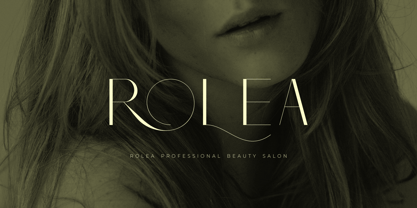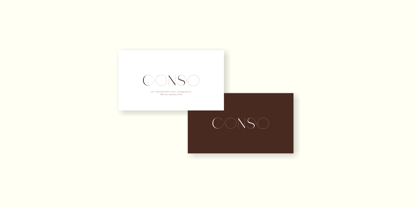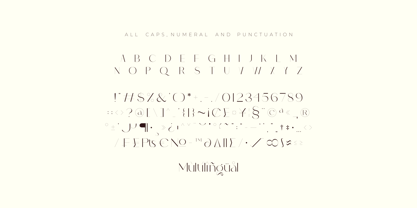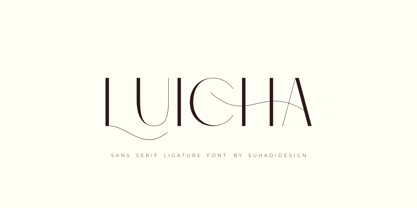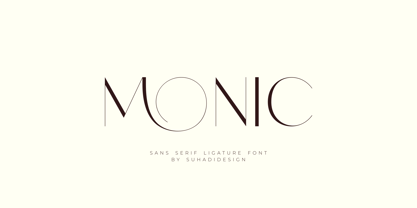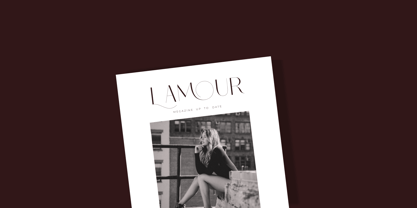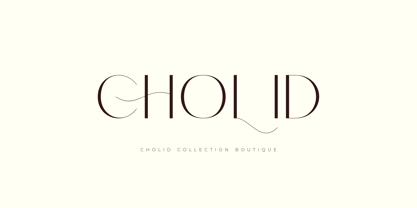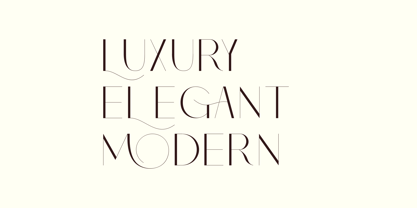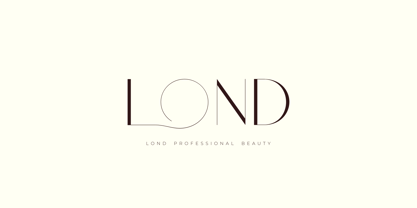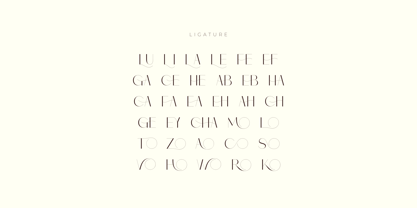
Monic
The Monic Font Family was designed by ahmad suhadi and published by suhadidesign. Monic contains 1 styles. More about this family
Monic - Modern Ligature Font
The latest stylish modern font has arrived, and it's being sought after by many women and men. It's the Monic font. Monic is a modern and stylish sans serif font. With its modern design and ligature features, this font has become a favorite on the market. We've kept this font looking elegant, classy, and stylish. Monic is the perfect choice for cosmetics, beauty, brands, logos, wordmarks, magazines, designs, books, publications, branding, brand names, business cards, social media, classy designs, newspapers, branding, beauty, and other projects. Monic is here to elevate the quality of your designs.
Features:
• All Capital Letters
• Ligatures
• Multilingual Support
• Numerics
• Punctuation